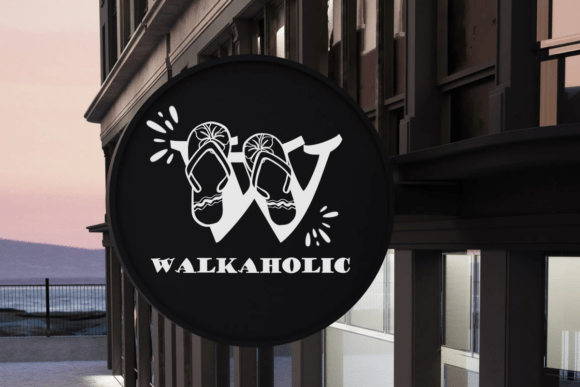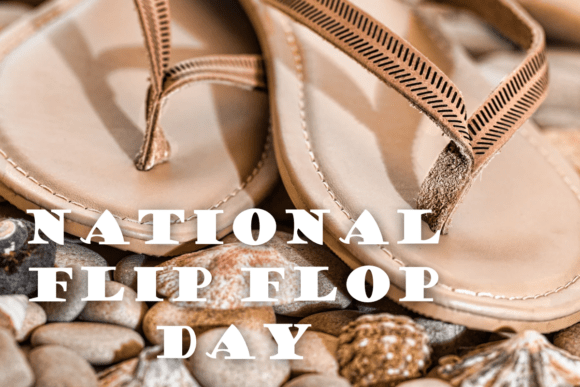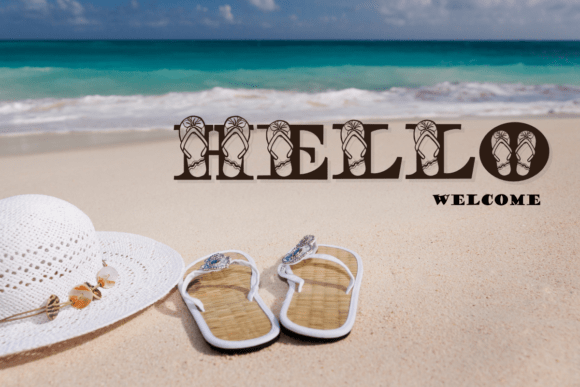
The Flip Flop Font: A Decorative Delight for Creatives
I’ll never forget the moment I stumbled upon the Flip Flop font. I was working on a project for a client who wanted a playful, yet elegant touch for their brand’s social media posts. As I scrolled through my font library, I found myself stuck. That’s when I remembered a quirky font I’d seen before – Flip Flop. Its unique charm instantly caught my attention, and I knew I had to give it a try.
As I began experimenting with Flip Flop, I realized its versatility extended far beyond social media posts. This decorative font can elevate various design projects, from notes and diaries to greeting cards, banners, and more!
The Good: ✨
- 😊 Unique and playful design: Flip Flop’s quirky style adds a touch of whimsy to any project.
- ✅ Highly versatile: Use it for notes, diaries, greeting cards, banners, social media posts, and more.
- 💡 Inspires creativity: Flip Flop’s distinctive design can spark new ideas and inspiration for your projects.
The Not-So-Good: 🤔
- ⚠️ Limited use in formal designs: Flip Flop’s playful nature might not be suitable for formal or professional projects.
- 🕰️ Can be time-consuming to work with: Due to its intricate design, you might need to adjust the font settings and spacing to achieve the desired look.
The Story Behind Flip Flop
Flip Flop was designed with the intention of capturing a carefree, playful spirit. Its creator aimed to craft a font that would inspire creativity and add a touch of whimsy to various design projects. Although the font’s origins might be shrouded in mystery, its charm and versatility have won over the hearts of many designers and crafters.
| Font Name | Flip Flop Font |
| Author | Bee piyanuch |
| What type of projects is Flip Flop best suited for? | Flip Flop is ideal for creative projects like notes, diaries, greeting cards, banners, social media posts, and more! |
| Is Flip Flop a difficult font to work with? | While Flip Flop can be a bit more intricate than other fonts, it’s still relatively easy to work with. Just be prepared to adjust font settings and spacing as needed. |